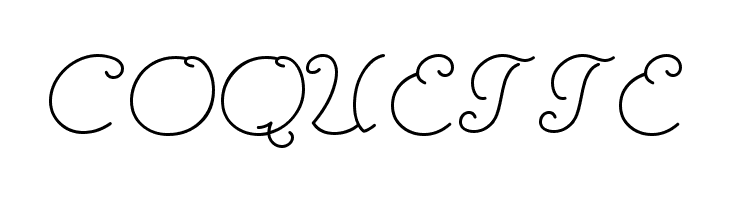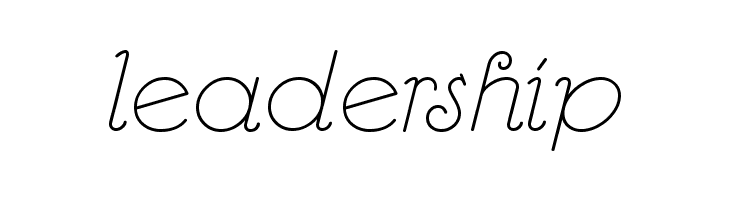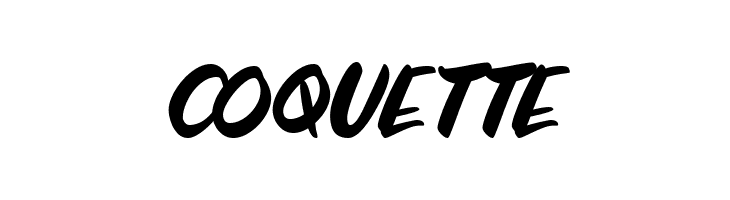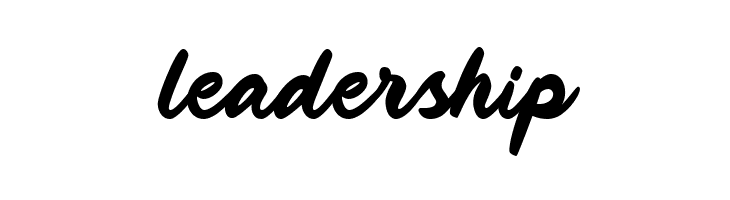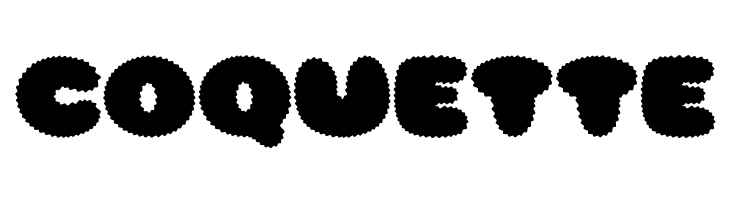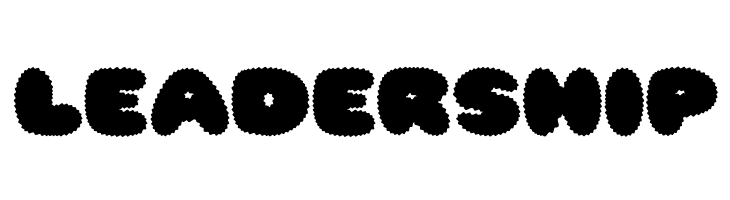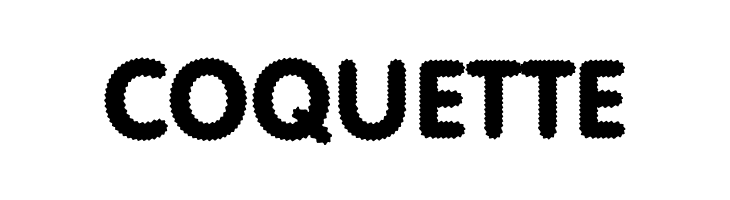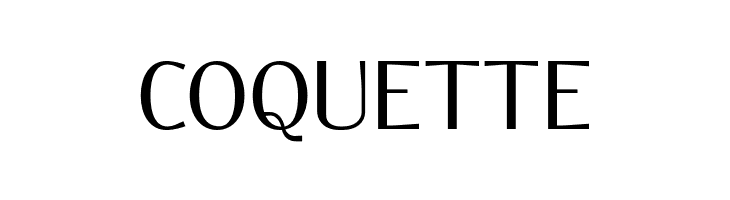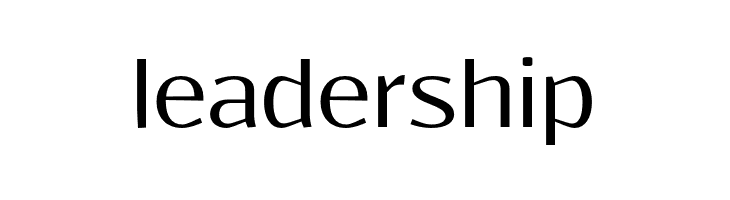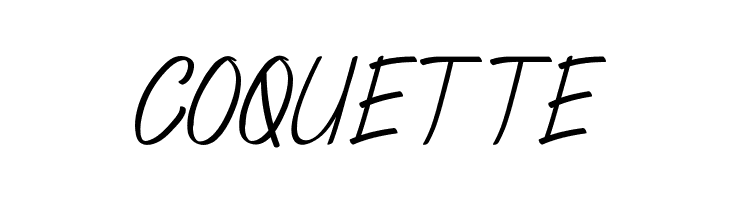
• Resagokr
A modern, clean sans-serif font with low contrast and a sleek appearance.
• Resagokr
A modern, clean sans-serif font with a slightly condensed style.
• Resagokr Bold
A bold, modern typeface with clean lines and a strong presence.
• Resagokr Light
A modern, light-weight font with clean lines and excellent readability.
• Residuální
A flowing, elegant cursive font with a classic yet modern appeal.
• RespighiOpti-Script
A sophisticated script font with flowing, cursive letterforms and elegant flourishes.
• RestianyScript
A sophisticated script font with fluid, connected strokes and elegant curves.
• Restollia Script PERSONAL USE Regular
A bold, flowing script font with dynamic, connected letters and elegant flourishes.
• Revolage Script
A decorative script font with flowing, interconnected strokes and elegant swirls.
• Revolage Script Oblique
A dynamic and flowing script font with an elegant oblique slant.
• Revolage Script Rough
A playful, rough-textured script font with decorative loops and curves.
• Revolage Script Rough Oblique
A bold, oblique script font with a rough, hand-drawn texture.
• Revolution_Script
A dynamic script font with a flowing, handwritten style.
• Rextions Script
A graceful, cursive script font with a handwritten style.
• Reyburn Demo Script
An elegant, flowing script font with a handwritten style.
• Reynard Demo
• Rhinatta Script
An elegant script font with fluid, cursive strokes and bold flourishes.
• Rhumba Script NF
An elegant script font with flowing curves and decorative swashes.
• RhumbaScriptNF